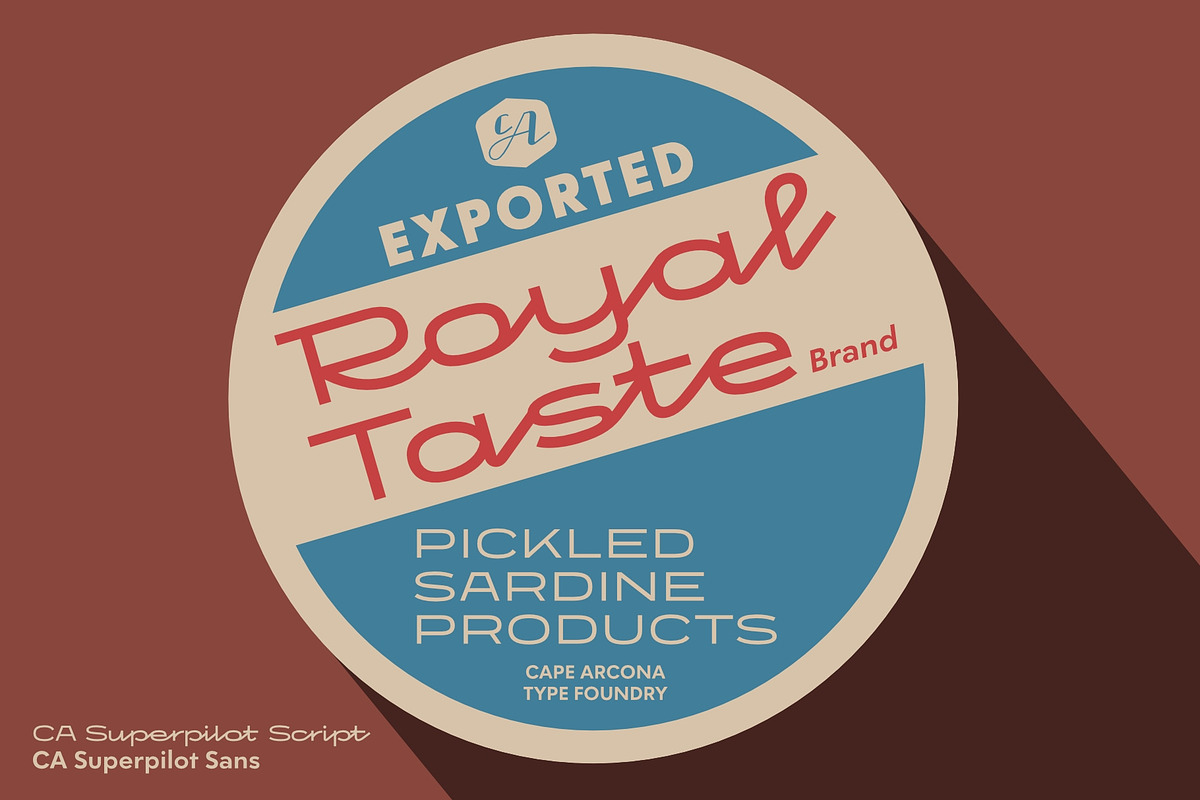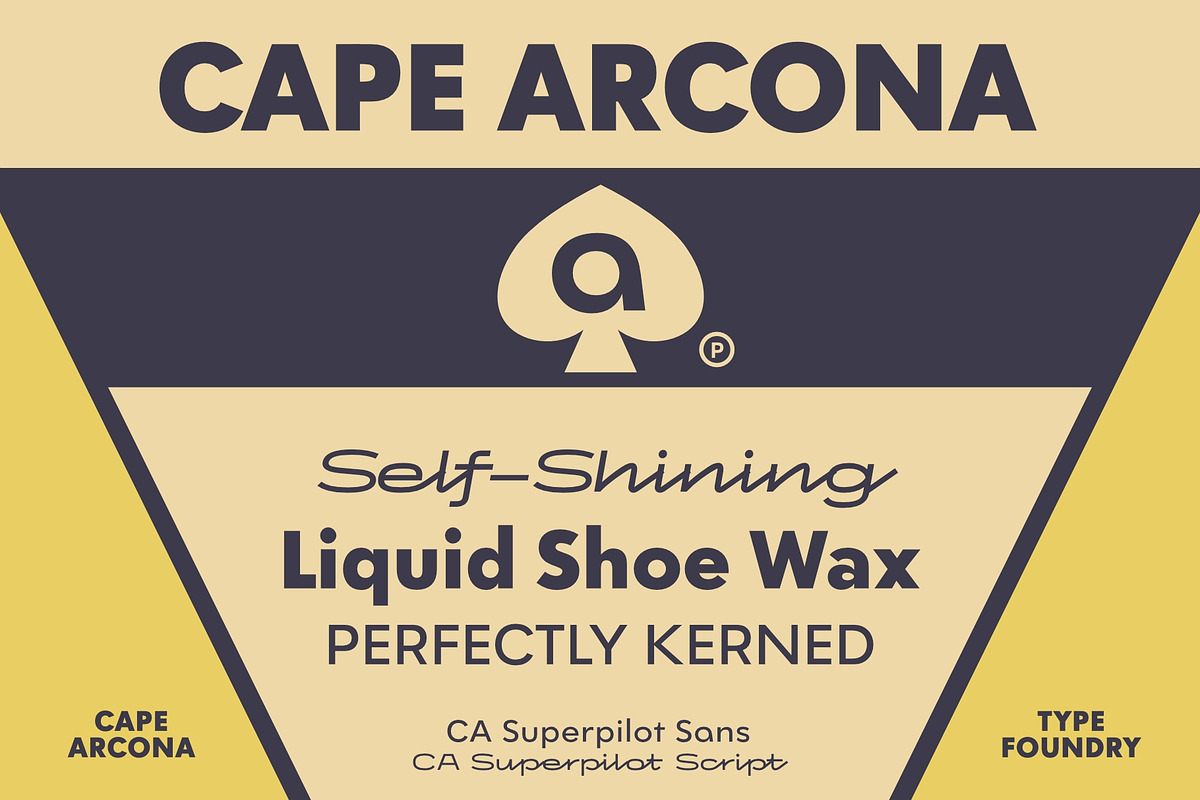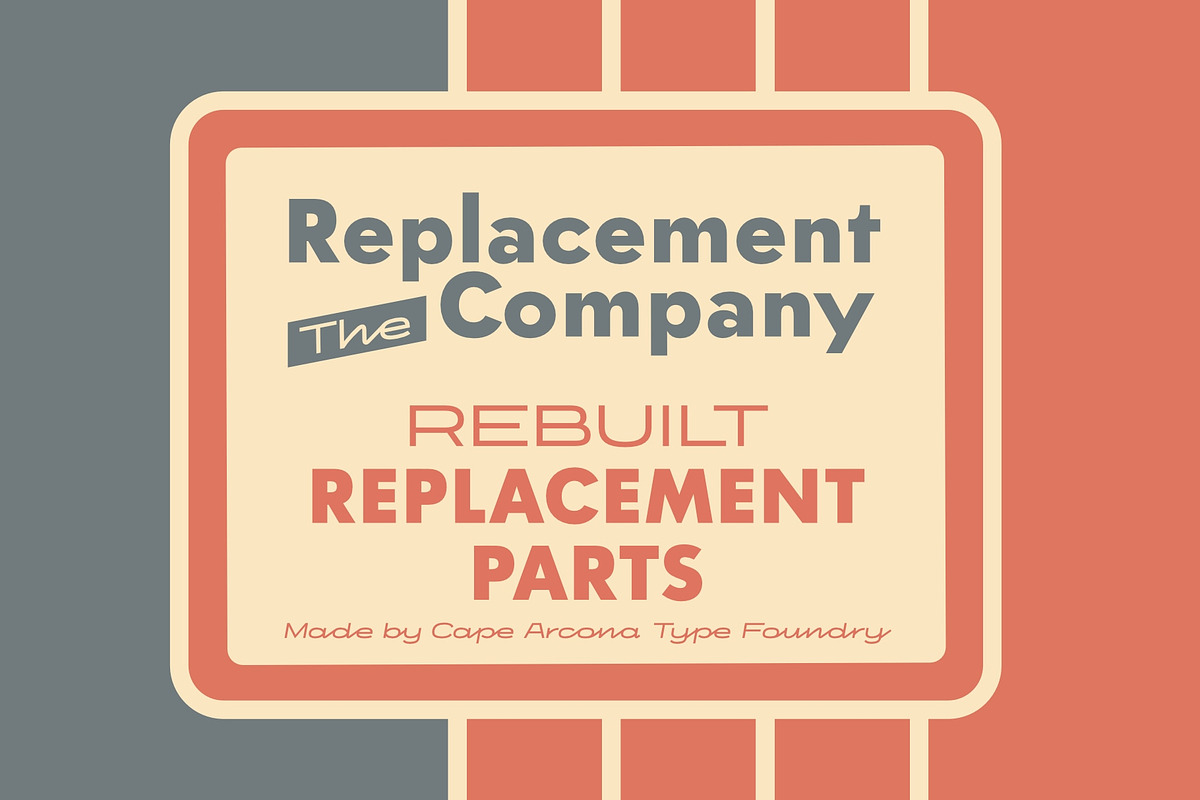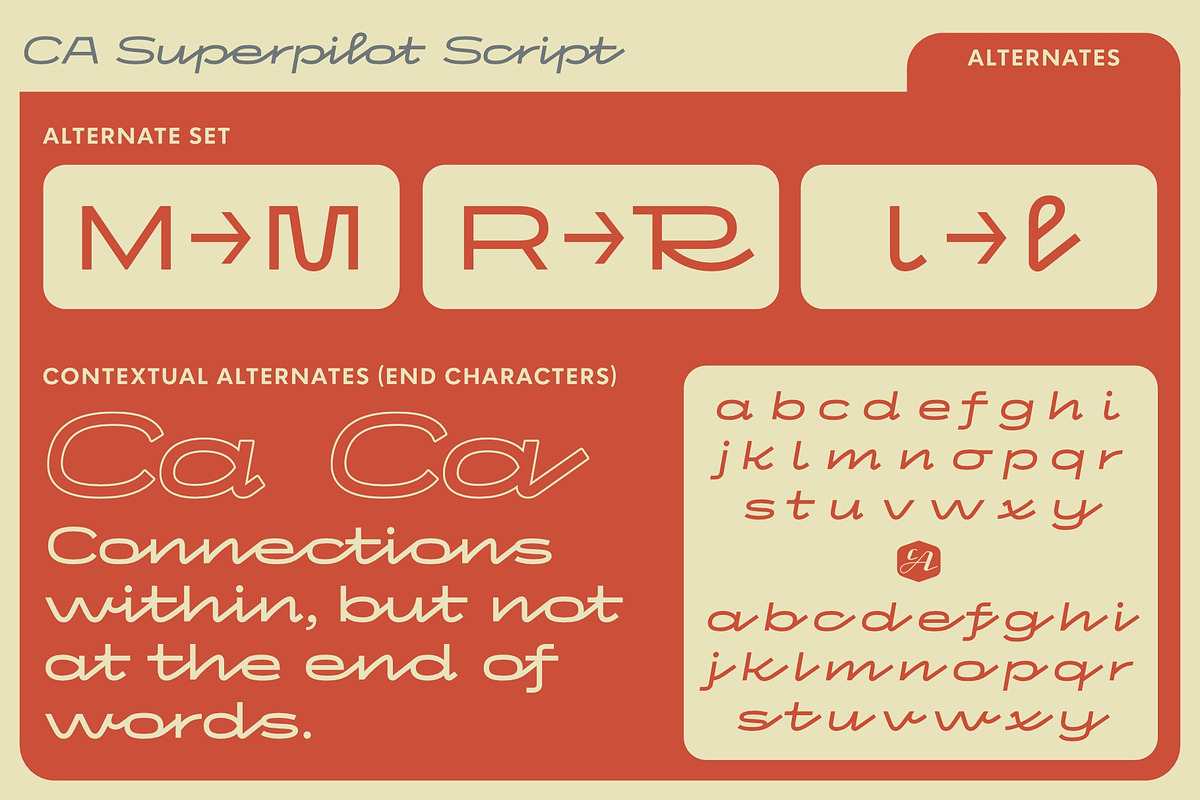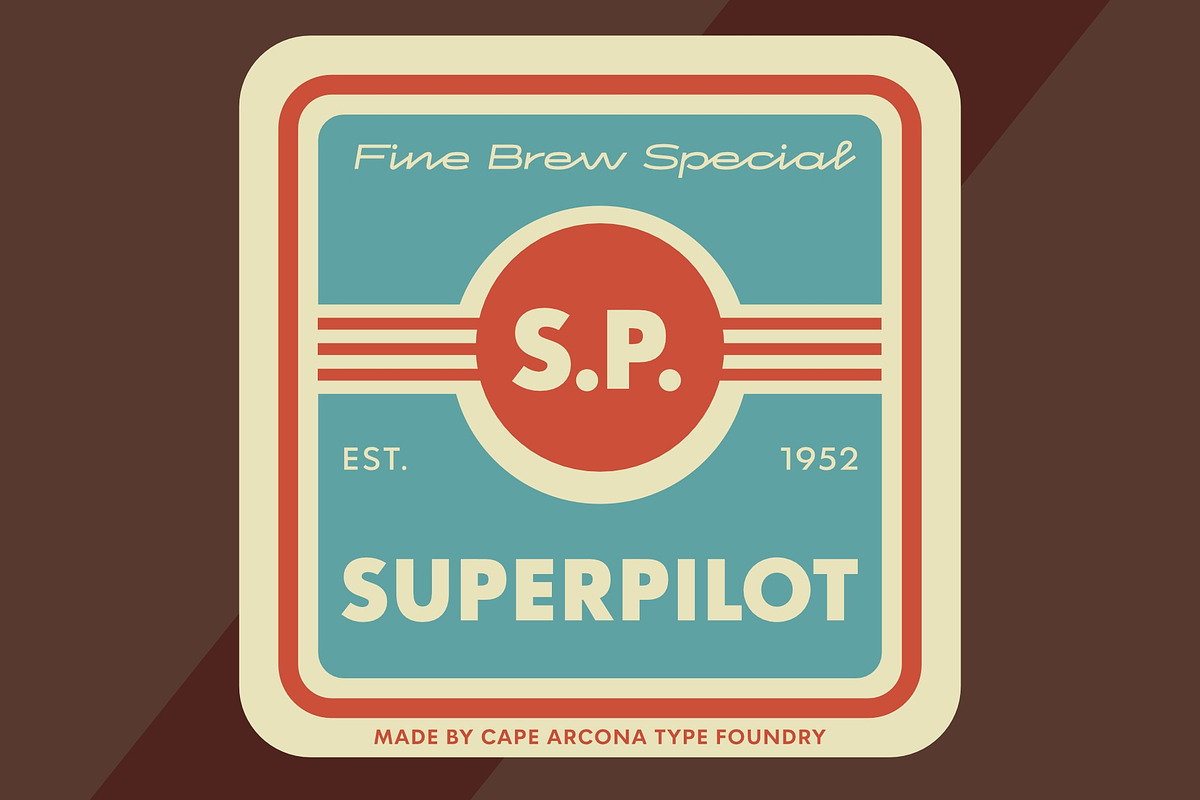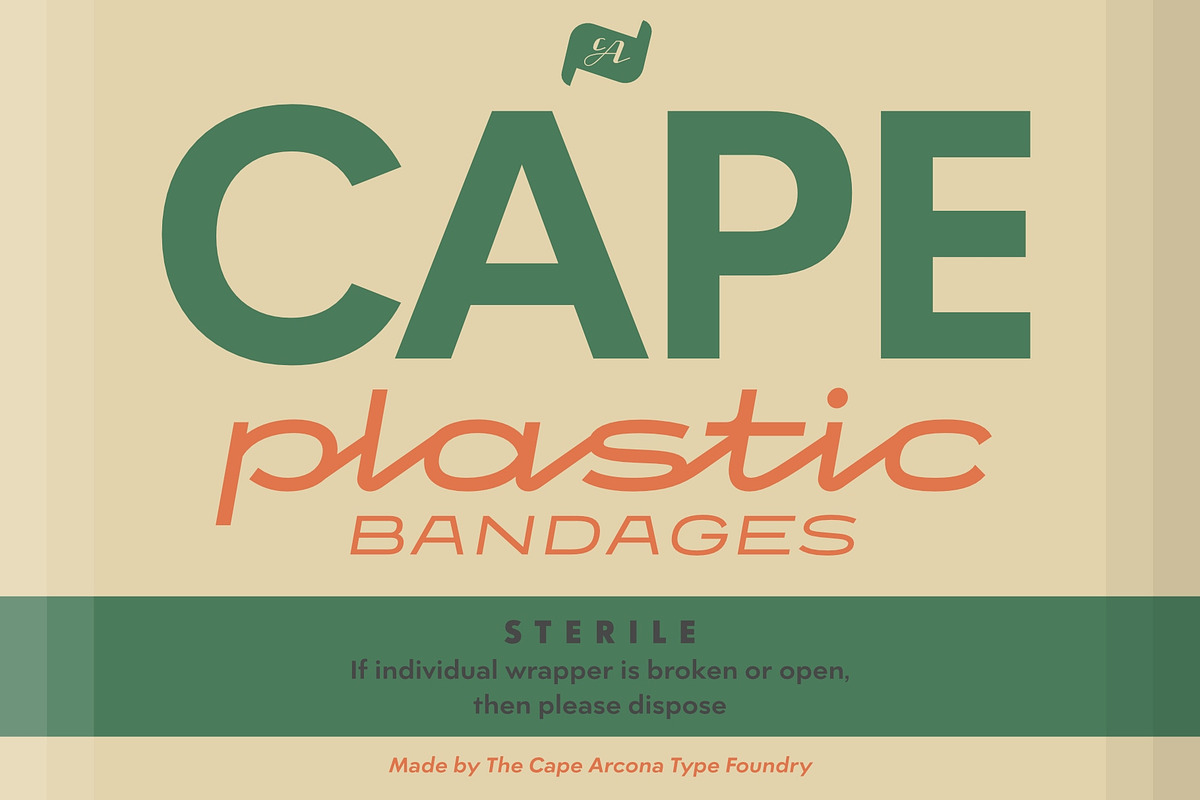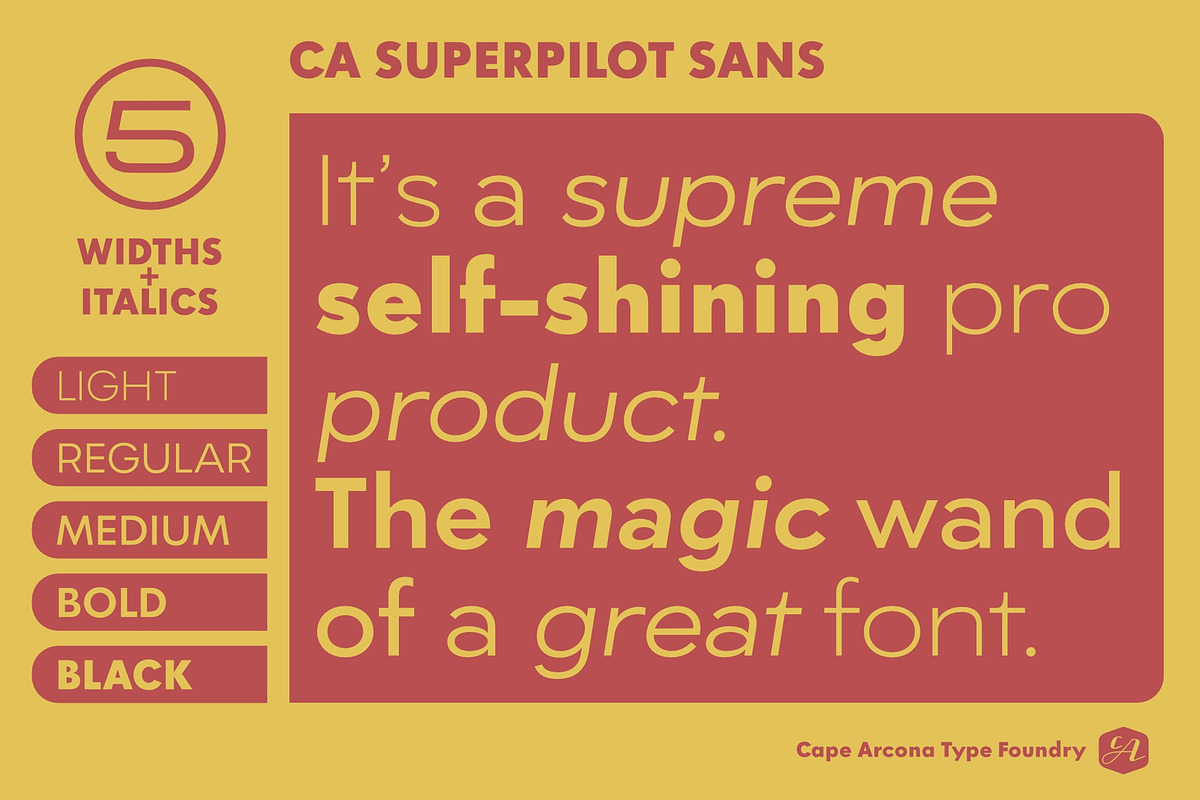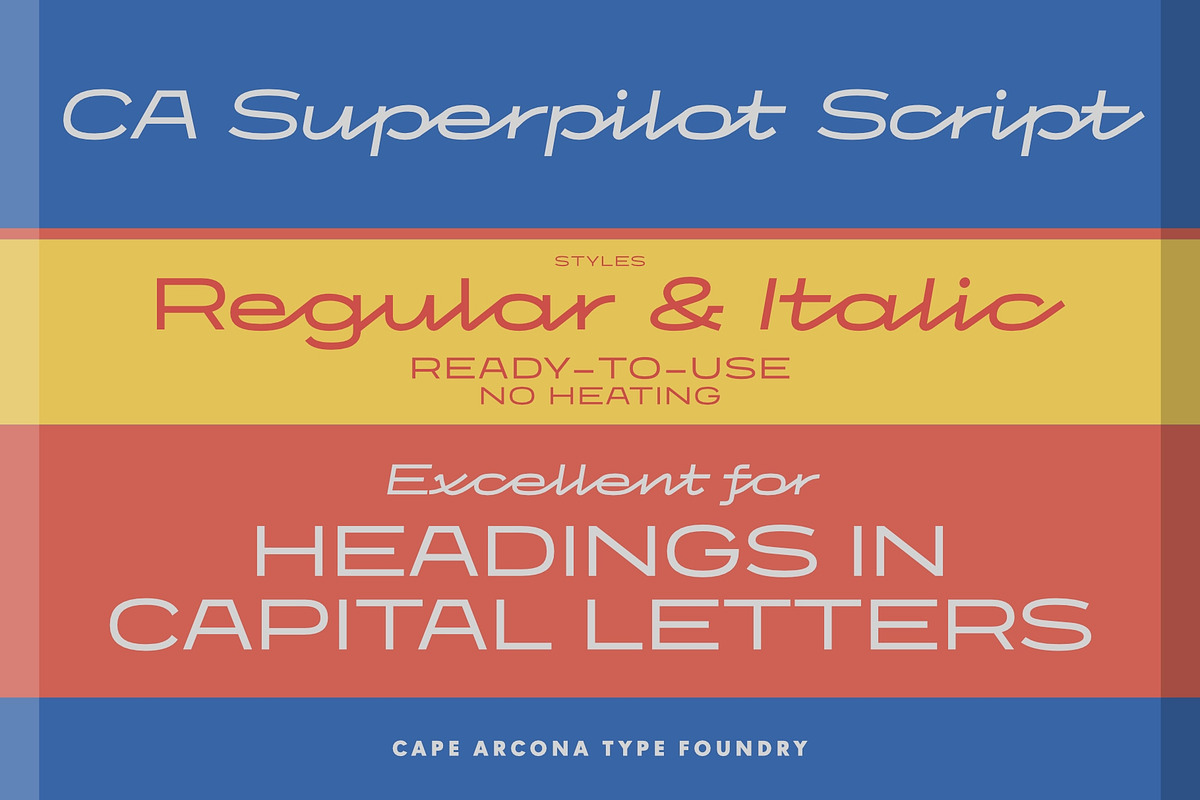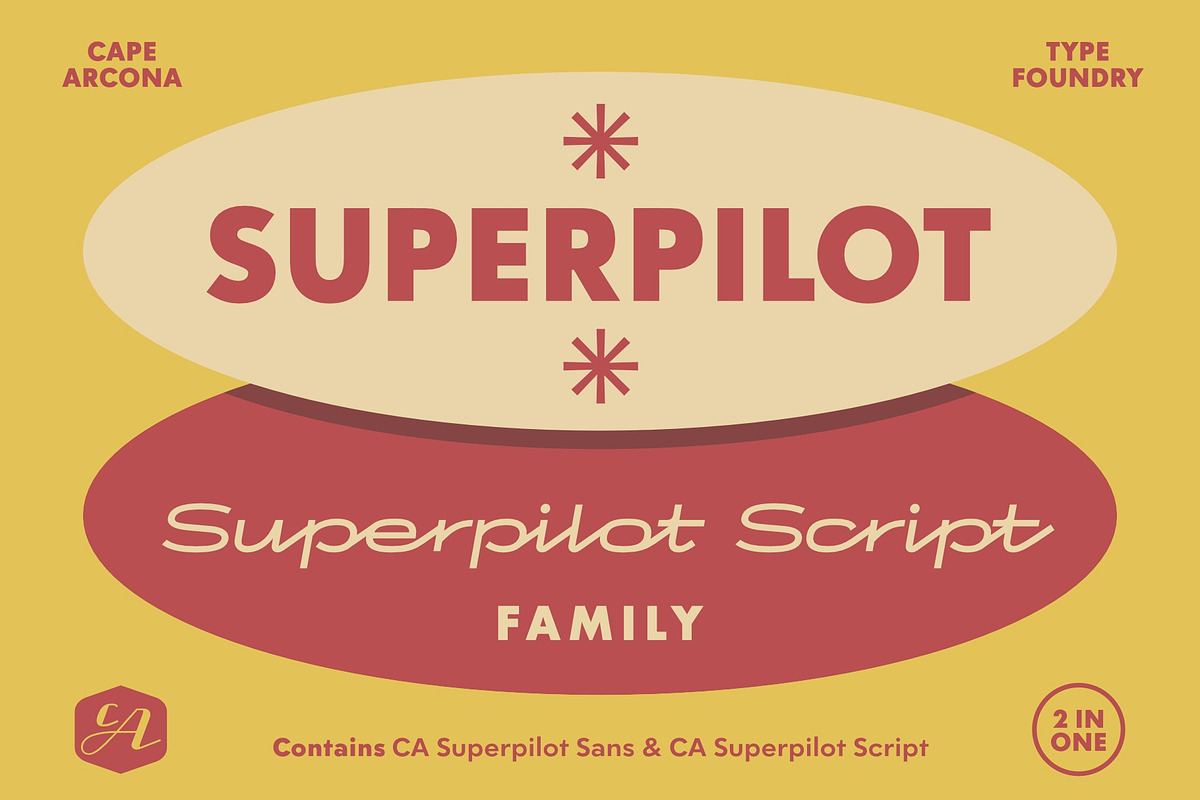
CA Superpilot
Introducing the ultimate family duo for creatives and designers: the CA Superpilot family. Let's start with the CA Superpilot Sans font family. It's a modern take on Futura, and it's perfect for those looking for a sleek and modern typeface. With five weights and italics, this font is versatile enough to use in any project. Also, it comes with a vast Central European character set and alternate characters, ensuring your designs will stand out in any language.
Next, we have the CA Superpilot Script. It's a monoline script font based on the logos and type designations of old camera equipment from the 1950s. The result is a one-of-a-kind and vintage-inspired typeface that adds character and charm to any project. With regular and italic styles, you'll have plenty of options to work with. Like Superpilot Sans, the script fonts include an extensive Central European character set and alternate characters. Despite being a script typeface, the bold strokes and clean lines of this font make it ideal for eye-catching and impactful headlines in uppercase.
These two fonts work together beautifully, offering exceptional versatility for any project. Whether it's a branding project, a website, or a print design, CA Superpilot typeface family has got you covered. Don't miss out on this essential font duo – get it today!